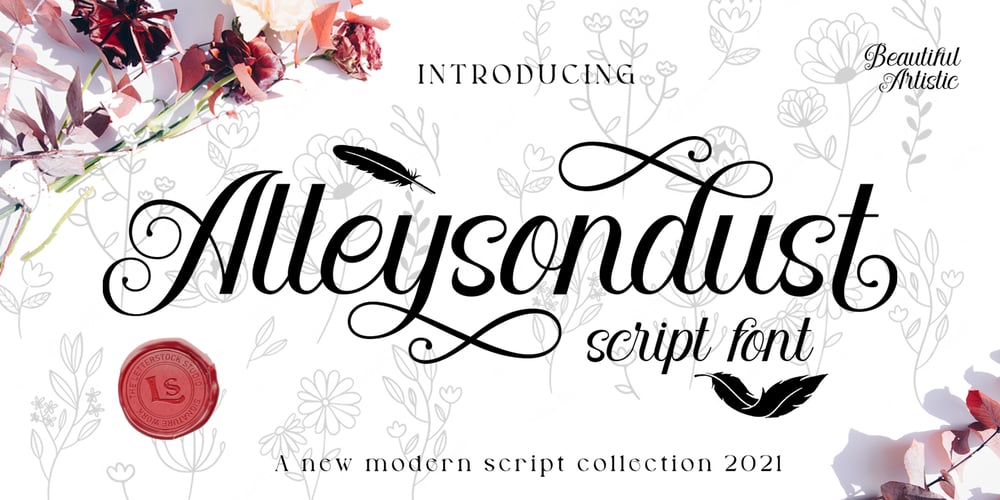
Alleysondust
Alleysondust font
Alleysondust Font Family was designed by Studio LetterStock and published by LetterStock. Alleysondust contains 1 styles and family package options. **Allysondust Font** This pair was inspired by beautiful invitation card design that i saw on some place, It was crafted by hand specially to add natural handmade feeling in its brand identity than i make it clean with pentool. **Opentype features**Allysondust font has 209 character set included Allysondust Font is very good looking in logo, labels, product packaging, invitations, advertising and others. This fonts works with folowing languages: Afrikaans, Albanian, Asu, Basque, Bemba, Bena, Chiga, Cornish, Danish, English, Estonian, Filipino, Finnish, French, Friulian, Galician, German, Gusii, Indonesian, Irish, Italian, Kabuverdianu, Kalenjin, Kinyarwanda, Low German, Luo, Luxembourgish, Luyia, Machame, Makhuwa-Meetto, Makonde, Malagasy, Malay, Manx, Morisyen, North Ndebele, Norwegian Bokmål, Norwegian Nynorsk, Nyankole, Oromo, Portuguese, Romansh, Rombo, Rundi, Rwa, Samburu, Sango, Sangu, Scottish Gaelic, Sena, Shambala, Shona, Soga, Somali, Spanish, Swahili, Swedish, Swiss German, Taita, Teso, Vunjo, Zulu Thank you for using this font.LS